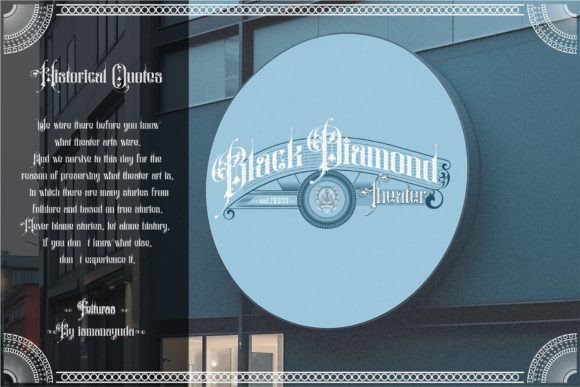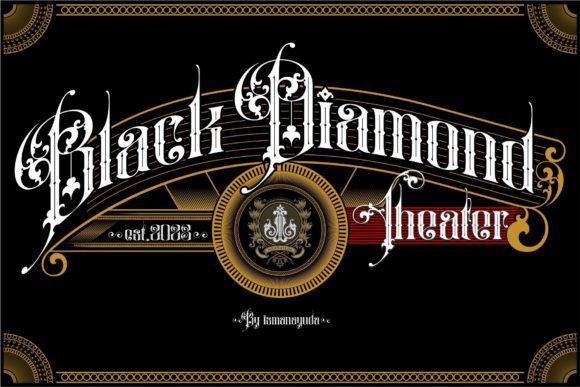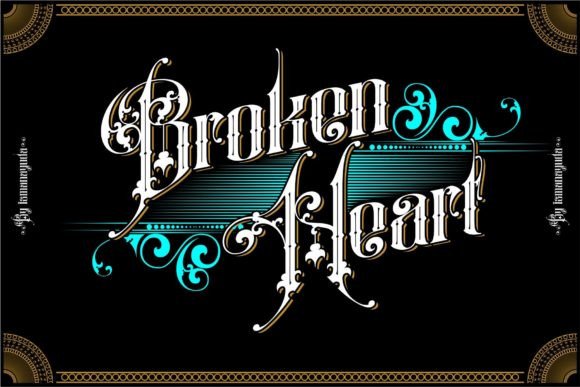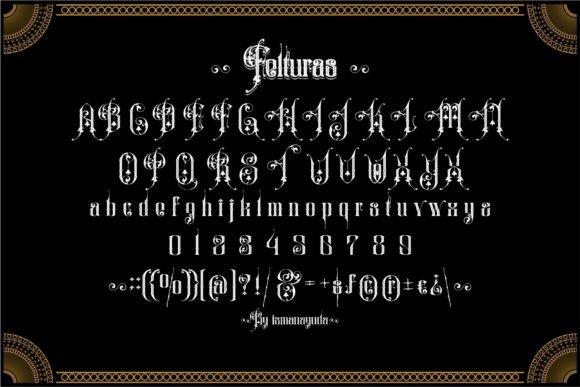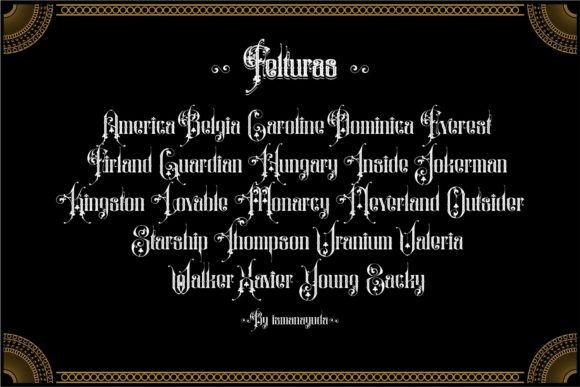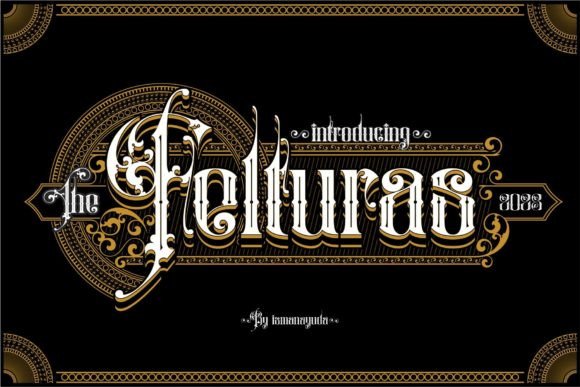
Felturas Font: A Victorian-Style Font for Unique Design Needs
In the world of design, fonts play a crucial role in conveying the intended message and aesthetic of a project. For designers and crafters looking for a unique and distinctive font, Felturas Font is an excellent choice. With its Victorian style, Felturas Font is perfect for a variety of design needs, including studio tattoos, mock-ups for clothes, and castle-style shops.
What is Felturas Font?
Felturas Font is a carefully crafted font that embodies the elegance and sophistication of the Victorian era. Its unique design features intricate details and ornate patterns, making it stand out from more traditional fonts. The font’s Victorian style is characterized by its elaborate and decorative lettering, which adds a touch of luxury and refinement to any design.
Key Features of Felturas Font
Felturas Font boasts several key features that make it an attractive choice for designers and crafters. Some of its notable features include:
- Unique Victorian-style design: Felturas Font’s distinctive design sets it apart from other fonts, making it perfect for designers looking to add a touch of elegance and sophistication to their work.
- Intricate details and ornate patterns: The font’s intricate details and ornate patterns add a level of complexity and visual interest to any design.
- High-quality and versatile: Felturas Font is designed to be versatile and can be used for a wide range of design projects, from studio tattoos to mock-ups for clothes and castle-style shops.
Uses for Felturas Font
Felturas Font is a versatile font that can be used for a variety of design projects. Some of the most popular uses for Felturas Font include:
- Studio tattoos: Felturas Font’s unique design makes it perfect for studio tattoos, adding a touch of elegance and sophistication to any tattoo design.
- Mock-ups for clothes: The font’s intricate details and ornate patterns make it an excellent choice for mock-ups for clothes, adding a level of complexity and visual interest to any clothing design.
- Castle-style shops: Felturas Font’s Victorian style makes it a natural fit for castle-style shops, adding a touch of luxury and refinement to any design.
Benefits of Using Felturas Font
There are several benefits to using Felturas Font for your design projects. Some of the most notable benefits include:
- Unique and distinctive design: Felturas Font’s unique design sets it apart from other fonts, making it perfect for designers looking to add a touch of elegance and sophistication to their work.
- High-quality and versatile: The font’s high-quality design and versatility make it an excellent choice for a wide range of design projects.
- Easily readable: Despite its intricate details and ornate patterns, Felturas Font is easily readable, making it perfect for use in a variety of design projects.
Tips for Using Felturas Font
To get the most out of Felturas Font, here are a few tips to keep in mind:
- Use it sparingly: Felturas Font’s intricate details and ornate patterns can be overwhelming if used excessively. Use it sparingly to add a touch of elegance and sophistication to your design.
- Pair it with a simple font: Pairing Felturas Font with a simple font can help to balance out the design and prevent it from becoming overwhelming.
- Experiment with different sizes and colors: Felturas Font can be used in a variety of sizes and colors. Experiment with different options to find the one that works best for your design.
Felturas Font is a unique and distinctive font that is perfect for designers and crafters looking to add a touch of elegance and sophistication to their work. With its Victorian style, intricate details, and ornate patterns, Felturas Font is an excellent choice for a variety of design projects, from studio tattoos to mock-ups for clothes and castle-style shops. Whether you’re a seasoned designer or just starting out, Felturas Font is a great addition to any design toolkit.